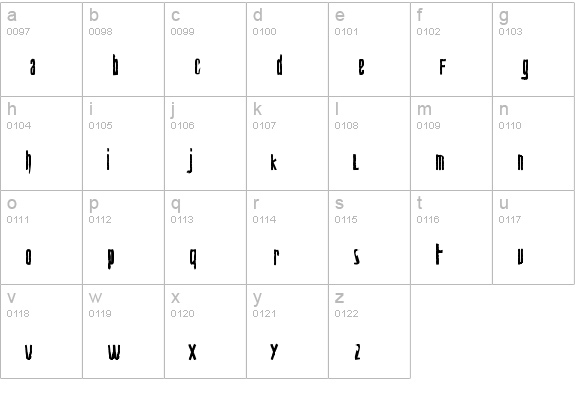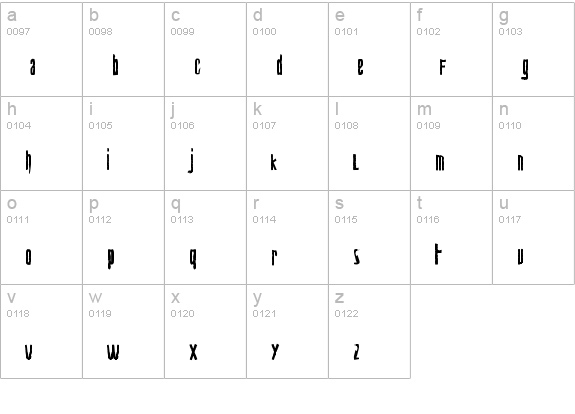
Biohazard Font Details
The Biohazard font is a bold and attention-grabbing typeface that exudes a sense of danger and intrigue. Its sharp edges and unique design make it perfect for projects that require a touch of edginess and mystery. This font is freely available to download at FontsMarket.com, allowing you to add a dose of danger to your designs without breaking the bank. Whether you're working on a poster, logo, or any other creative project, Biohazard font is sure to make a lasting impression. Download it today and unleash the power of this captivating font in your designs.